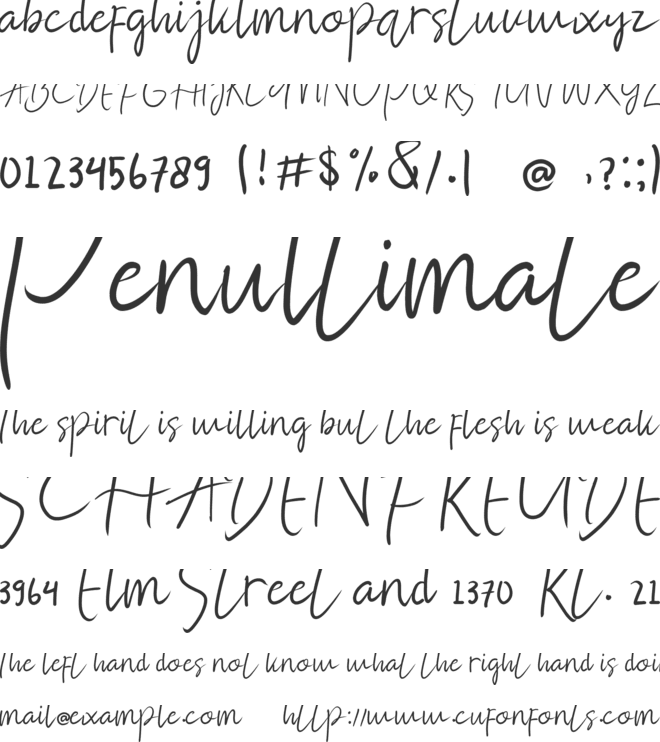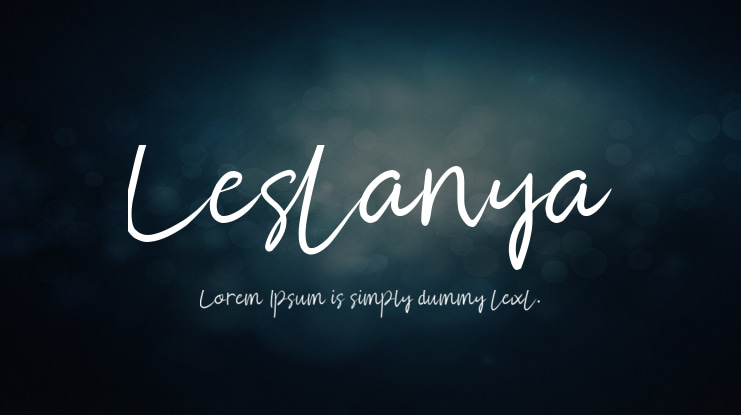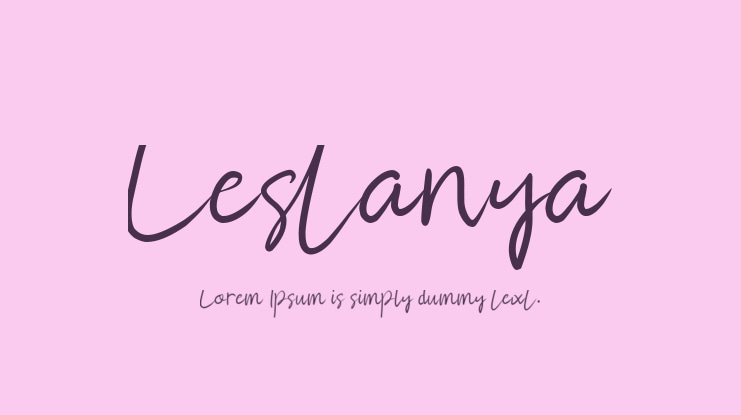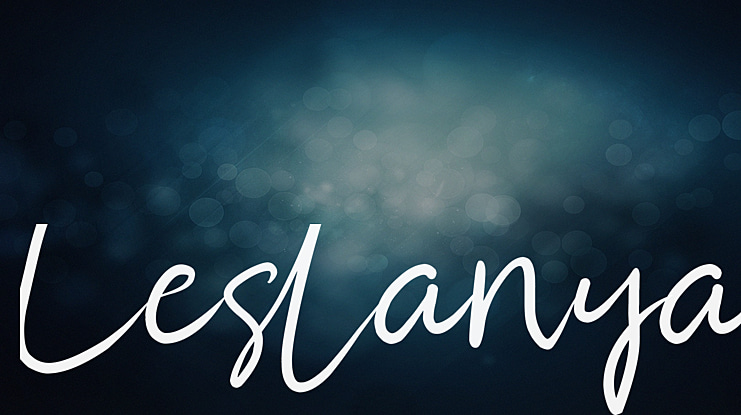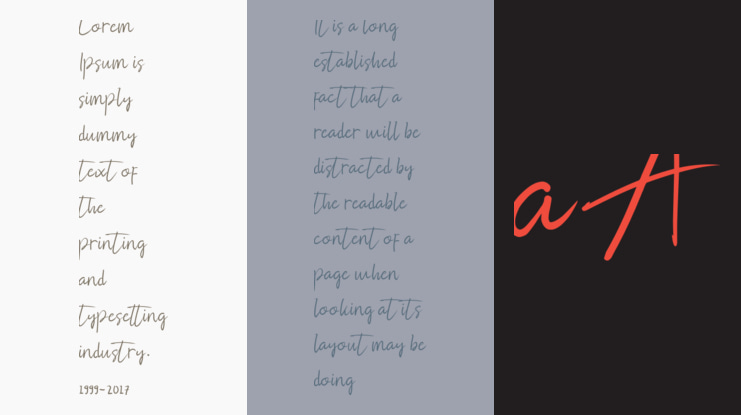
Lestanya Font
Lestanya modern caligraphy font is very elegant and beautiful for logos, packaging design, wedding invitations, fashion, branding, business cards, and for other design projects. This font provides ligature, stylistic alternate and multilingual support.